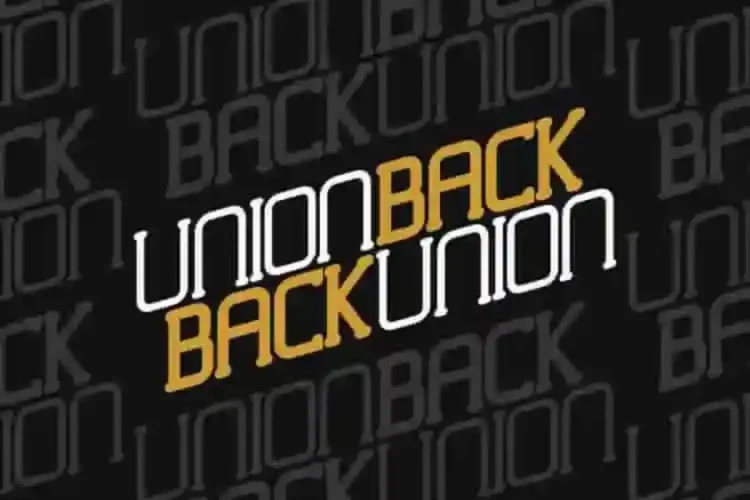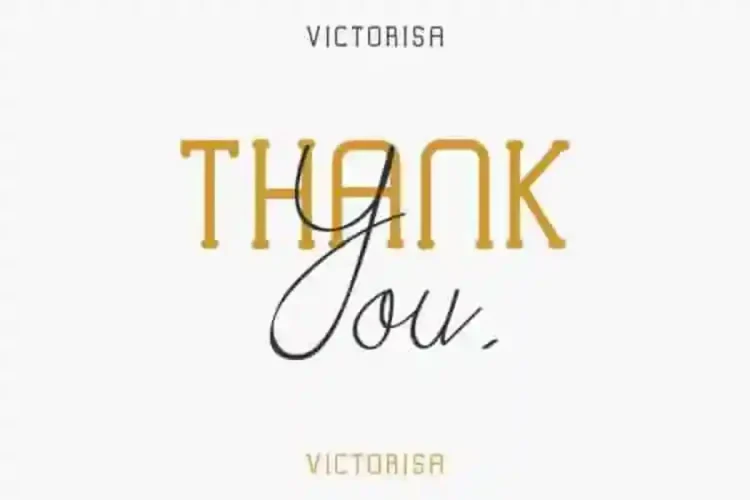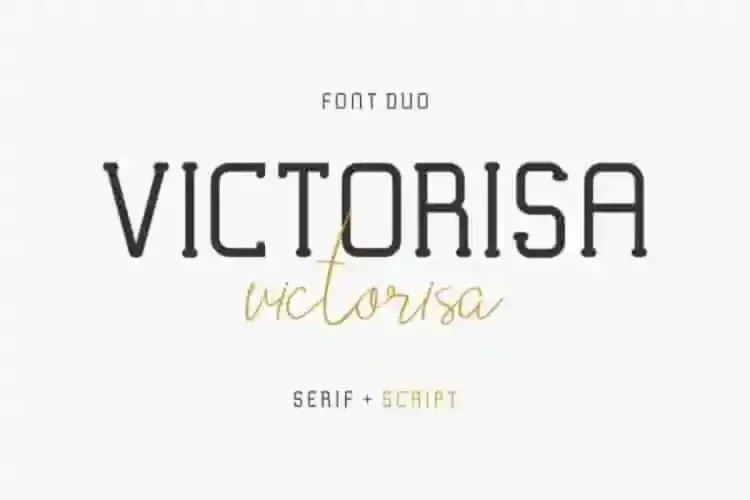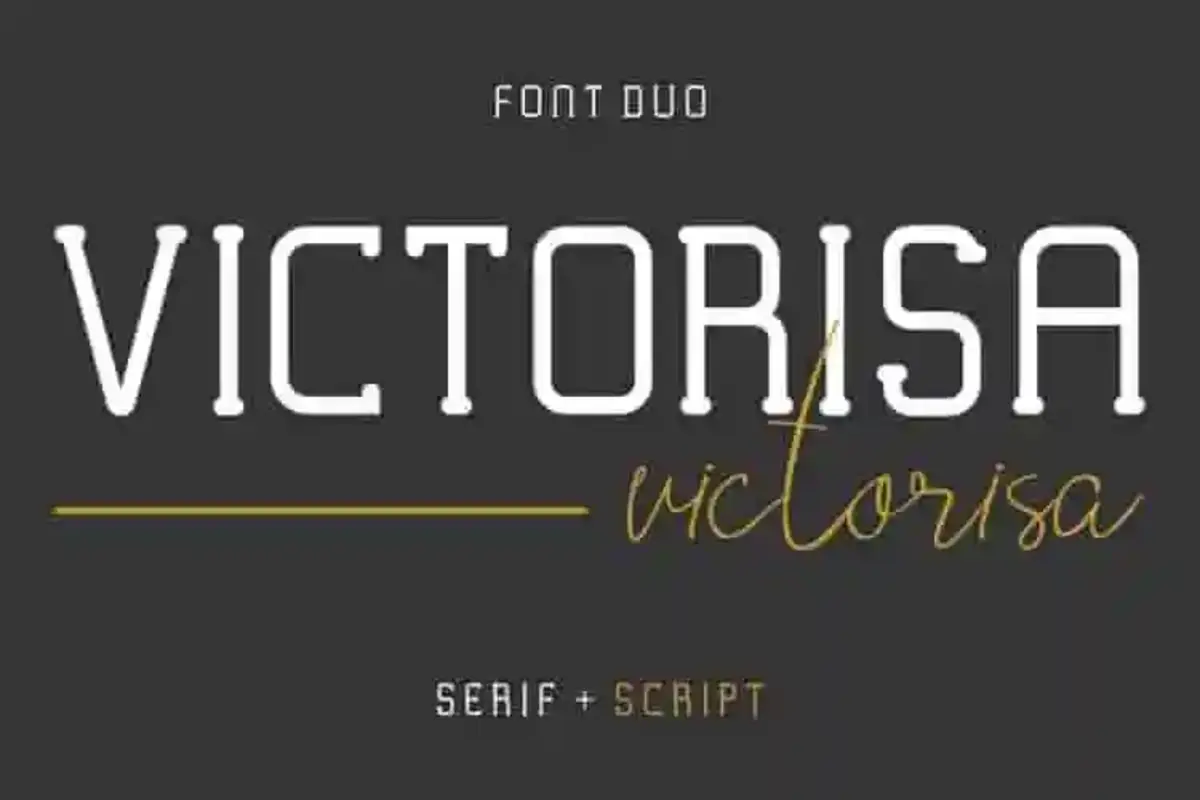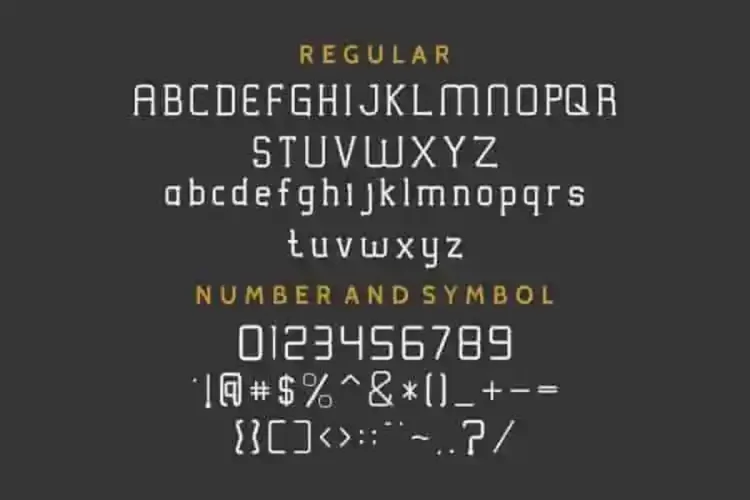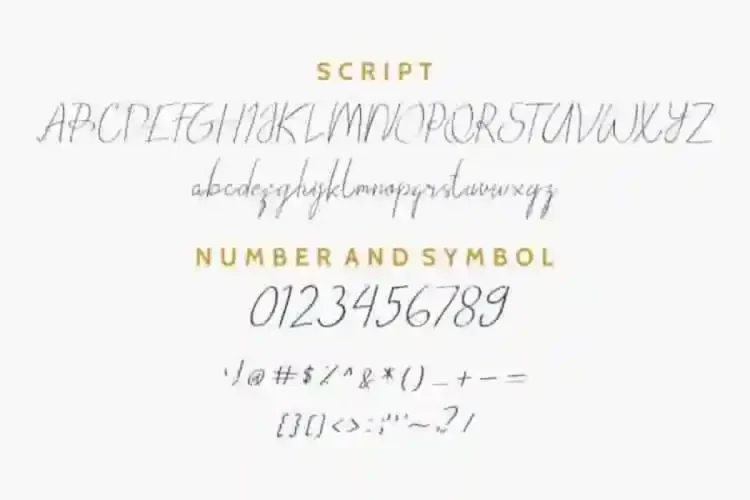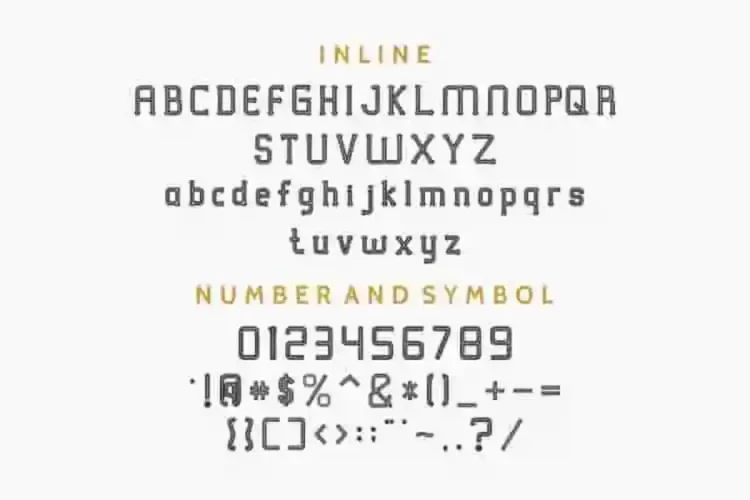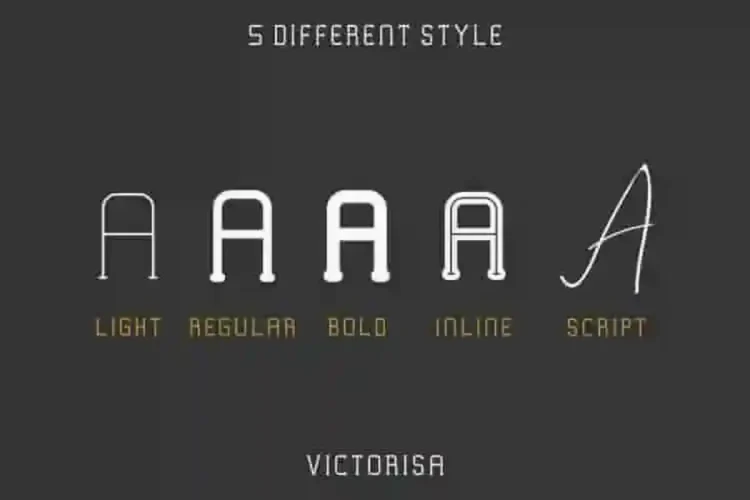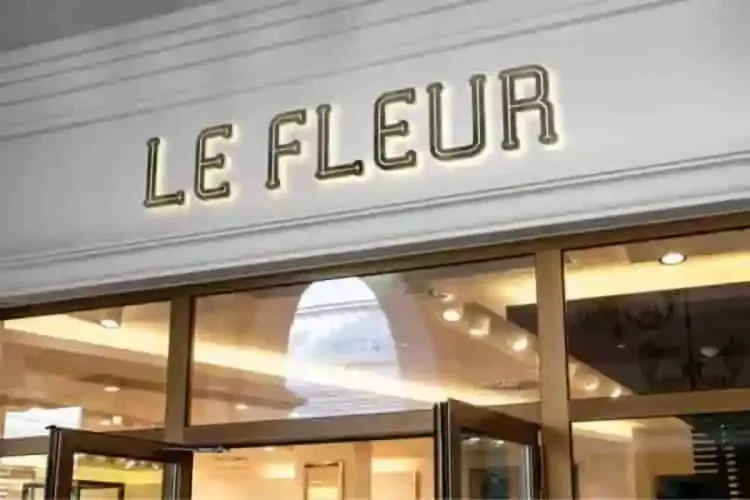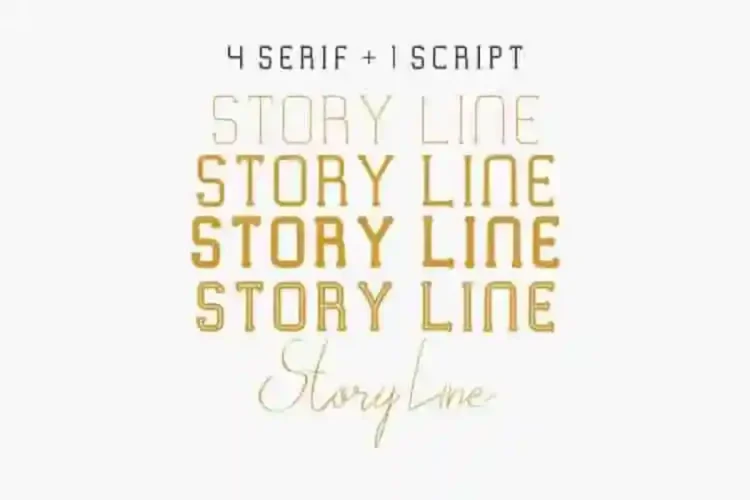
Victorisa Special 5 Fonts
Hi Everyone! Introducing our newest font : Victorisa ! There are FIVE FONTS includes.
Inside the family, you’ll get:
• 4 Serif Styles
• 1 Script Font
Victorisa includes:
• Light – sleek and minimalist
• Regular – balanced and readable
• Bold – strong and impactful
• Inline – decorative and retro-modern
• Script – elegant handwriting with a personal touch
Featuring fresh, exclusive and stylish glyph. Victorisa is ideal for branding, logo, stationery, business card, signage, flyer, brochure etc.
This modern sans serif font duo works beautifully as a pair or as standalone fonts. The script style adds a handwritten, personal touch to contrast the bold, structural elegance of the serif set. You’ll get a cohesive serif and script font pack that’s ready to use across multiple design platforms.
From business cards to brochures, packaging to website headers, Victorisa is the perfect elegant font duo for both print and digital use. Its balance between style and functionality makes it one of the most versatile professional font families you can add to your creative toolkit.
From the thin elegance of Victorisa Light to the bold personality of Victorisa Bold and the refined curves of the Victorisa Script, this family offers a complete typographic toolkit. It’s clean, stylish, and endlessly versatile.